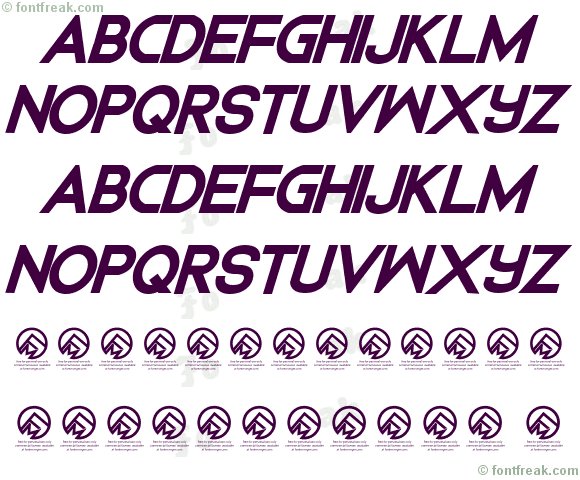
Dedecus Bold Italic
Dedecus Bold Italic is a striking display font designed by Chris Vile and released as freeware by Fontillery. This font falls into the category of sans-serif, characterized by its bold, italicized style that conveys a sense of dynamism and modernity. The visual characteristics of Dedecus Bold Italic include a robust stroke weight and a well-defined contrast that enhances its legibility, even at smaller sizes. The slanted letters create a sense of movement, making it an engaging choice for various design projects. The spacing is adequately balanced, ensuring that each character stands out while maintaining a cohesive flow.
This font is particularly well-suited for a range of use cases. It can elevate wedding invitations with its elegant yet assertive presence, making them memorable for guests. Movie posters benefit from its boldness, drawing attention and conveying a sense of excitement. Restaurant menus can utilize Dedecus Bold Italic to highlight special dishes or promotions, enhancing the overall dining experience. Additionally, it serves well in branding materials for small businesses, allowing them to project a confident image that resonates with their target audience. Content creators looking to make an impact will find this font ideal for eye-catching headlines and titles.
The target audience for Dedecus Bold Italic includes graphic designers, small business owners, and content creators who seek a versatile and eye-catching typeface. Its unique attributes make it a standout choice for those aiming to capture attention effortlessly. The combination of its boldness and elegant italicization ensures that it leaves a lasting impression. For anyone looking to enhance their projects, the Dedecus Bold Italic font free download offers an excellent opportunity to incorporate this distinctive style into their designs.